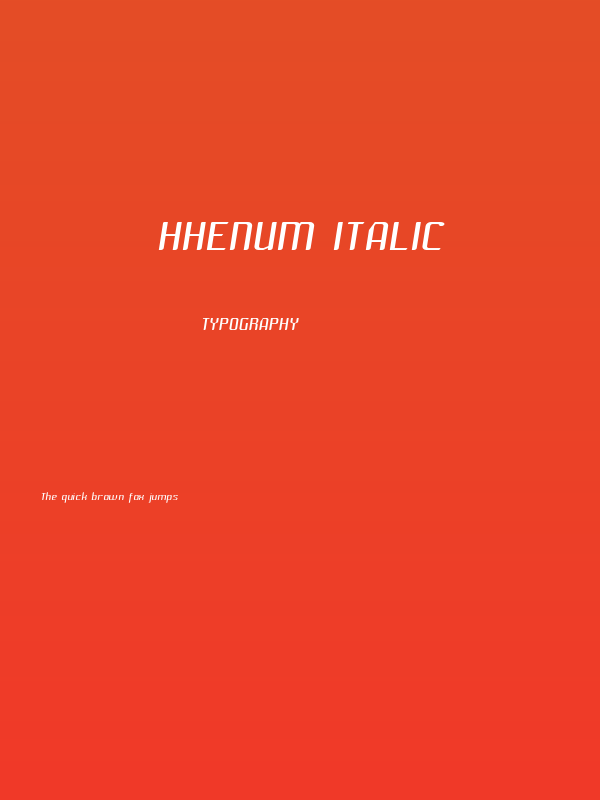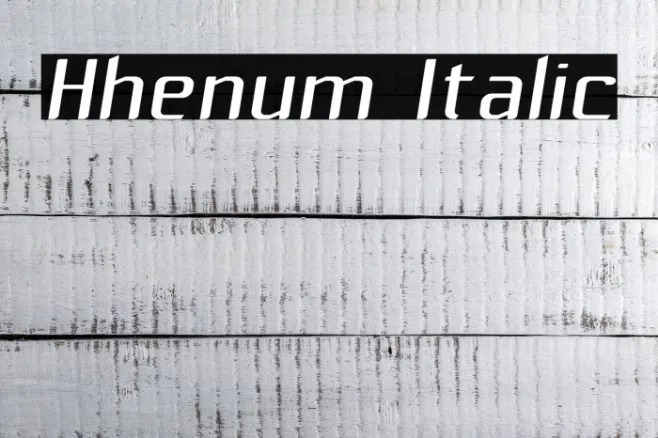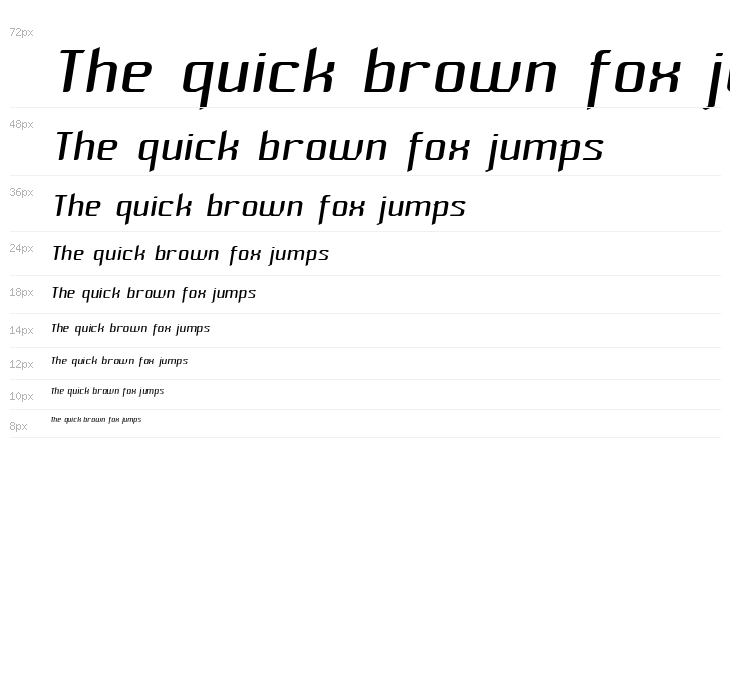
Hhenum Italic Font
Hhenum Italic Description
This font features a sleek, italicized design with a modern and slightly futuristic aesthetic. The characters are elongated and have a forward-leaning slant, giving a sense of motion and dynamism. The uppercase letters are bold and structured, while the lowercase letters maintain a consistent slant and flow. Numbers and special characters follow the same italicized style, ensuring uniformity across all elements. The strokes are consistent in thickness, providing a medium contrast that enhances readability while maintaining a stylish appearance. The overall design is clean and sharp, making it suitable for contemporary applications.
| Use Case | Headlines, Logos, Advertising |
| Proposed Projects | Ideal for branding projects, modern web design, technology-related graphics, and dynamic advertising materials. |